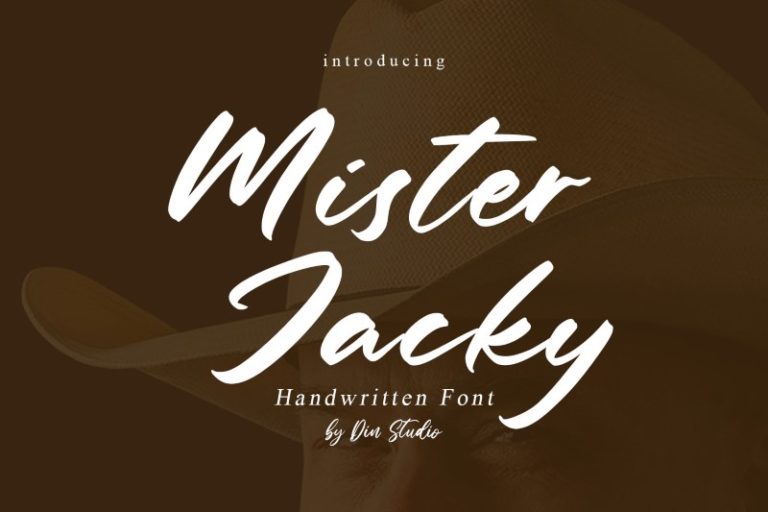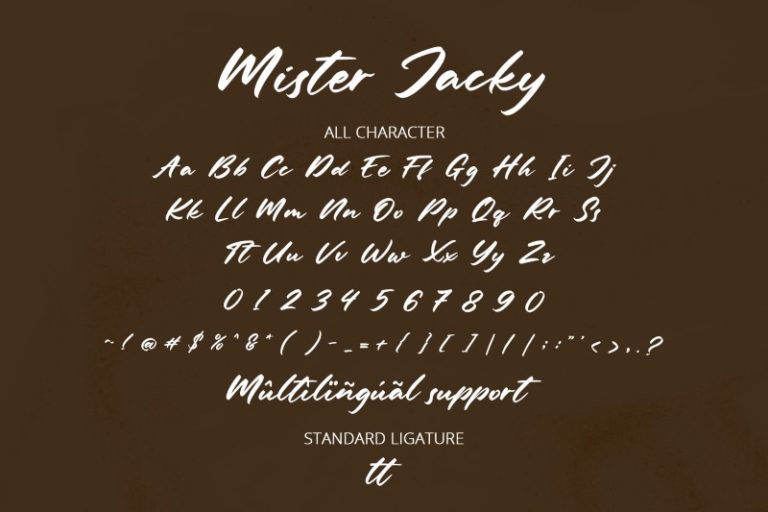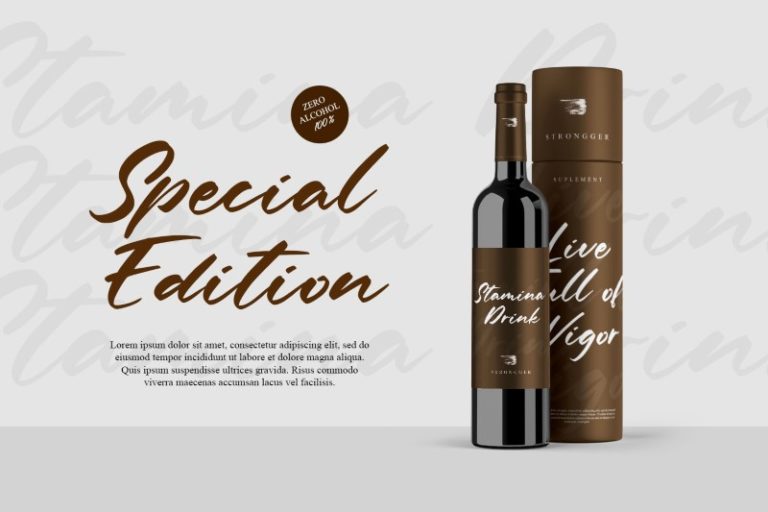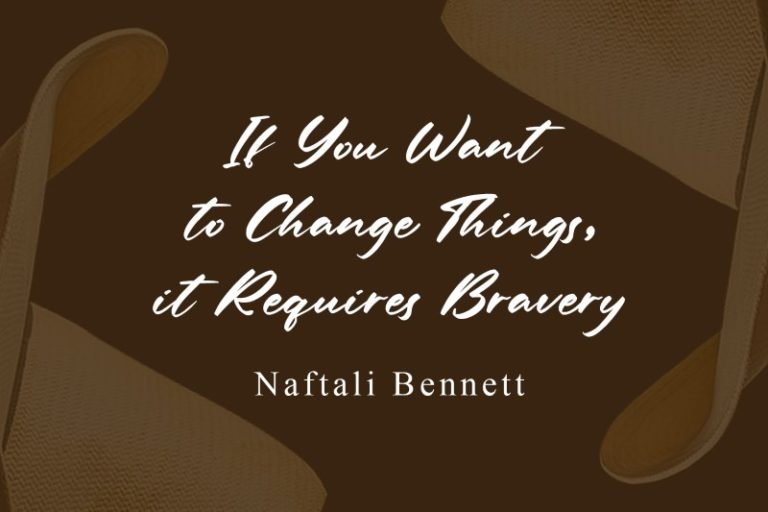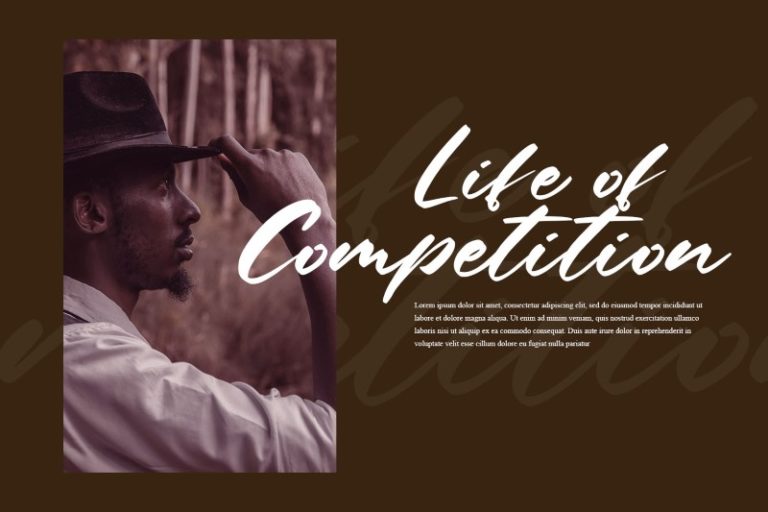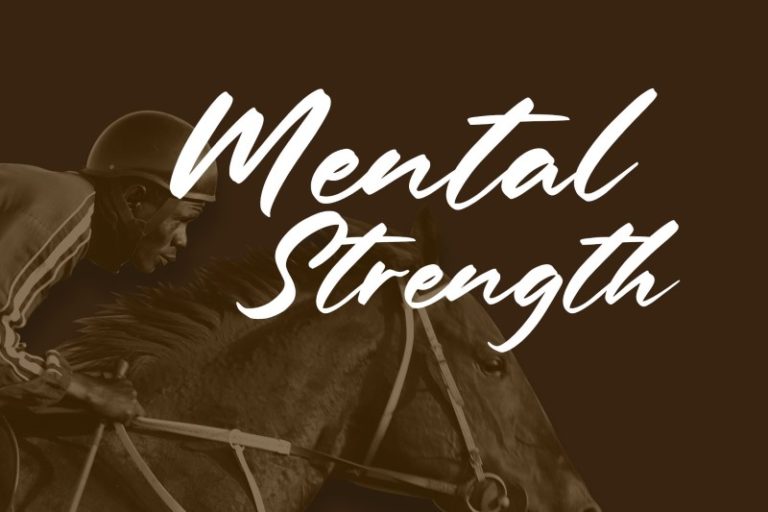
Mister Jacky – Handwritten Script Font
Mister Jacky
Hello guys! Say hello to Mister Jacky – Modern Handwritten Font. It will make your design project more powerful and beautiful. The font is suitable for any project such as logos, branding and quotes. See the previews above to get some inspiration on how you can use them. Enjoy the Font!
- Ligature
- Accents (Multilingual characters)
- PUA encoded
- Numerals and Punctuation (OpenType Standard)
This Font Support Language:
Afrikaans, Albanian, Asu, Basque, Bemba, Bena, Breton, Chiga, Cornish, Danish, Dutch, English, Faroese, Filipino, Friulian, Galician, German, Gusii, Indonesian, Irish, Italian, Kabuverdianu, Kalenjin, Kinyarwanda, Luo, Luxembourgish, Luyia, Machame, Makhuwa-Meetto, Makonde, Malagasy, Manx, Morisyen, North Ndebele, Norwegian Bokmål, Norwegian Nynorsk, Nyankole, Oromo, Portuguese, Quechua, Romansh, Rombo, Rundi, Rwa, Samburu, Sango, Sangu, Scottish Gaelic, Sena, Shambala, Shona, Soga, Somali, Spanish, Swahili, Swedish, Swiss German, Taita, Teso, Uzbek (Latin), Vunjo, Zulu